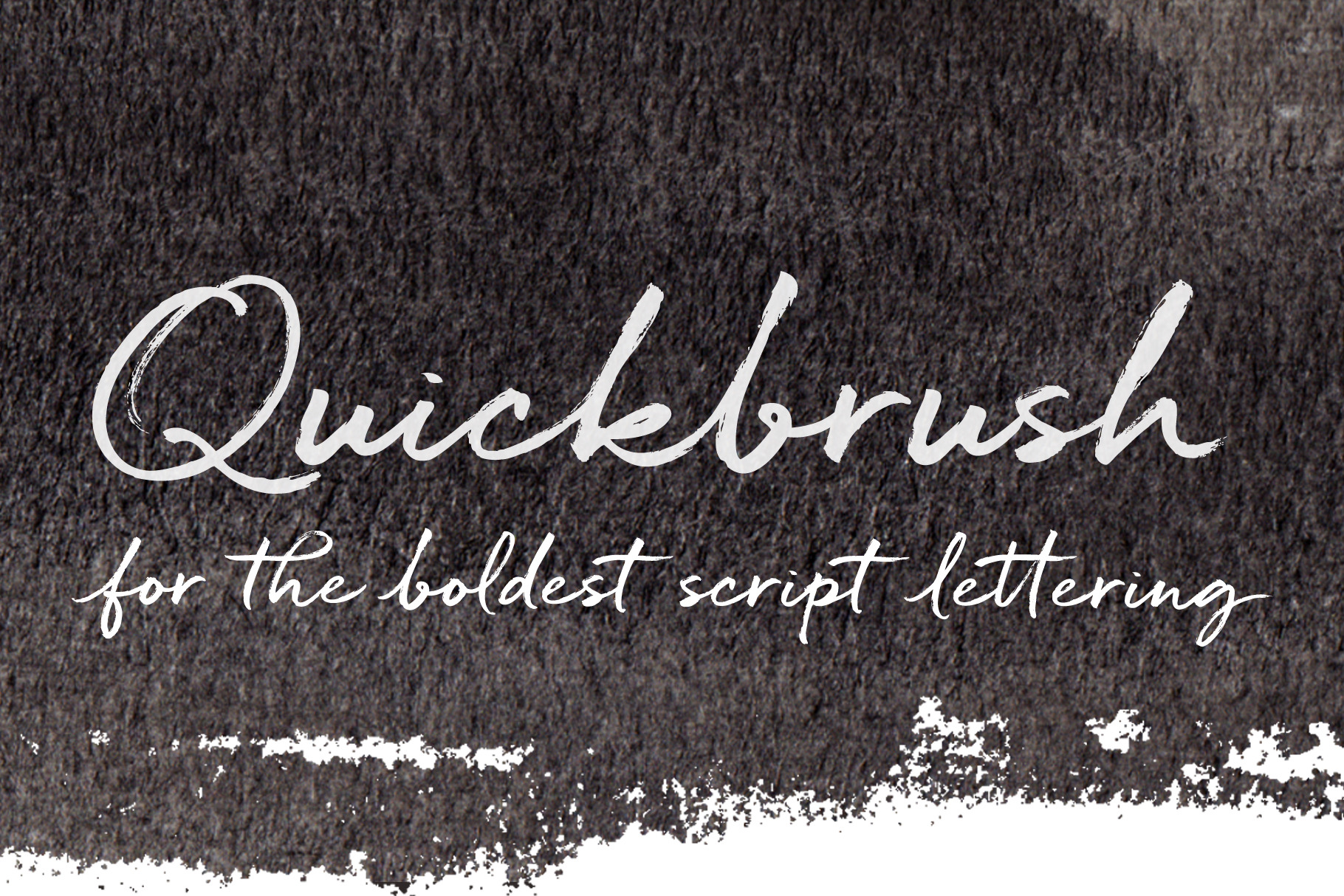
Quickbrush- the bold brush font
Quickbrush- the handwritten script with a bold, gender-neutral vibe. Its unique heft allows Quickbrush to layer so well over photos and other backgrounds.
Like its cousin Quickpen, Quickbrush is an unfussy, confidently jotted script, with lots of rich texture to recreate the skips and jumps that appear in brush pen lettering. Contextual alternates for lowercase letters mimic starting and ending marks, to make each word look truly written by hand.